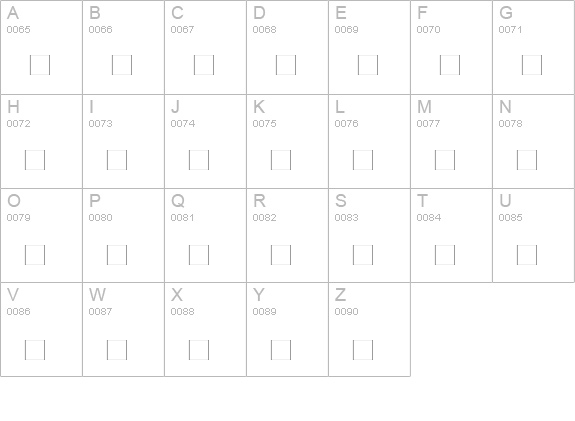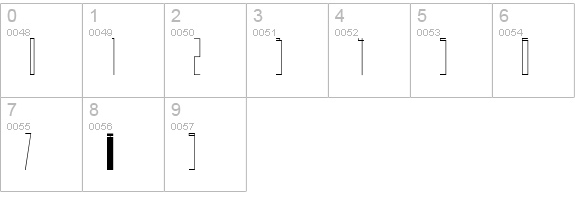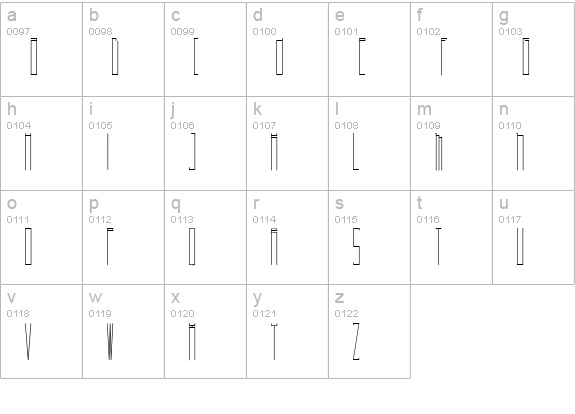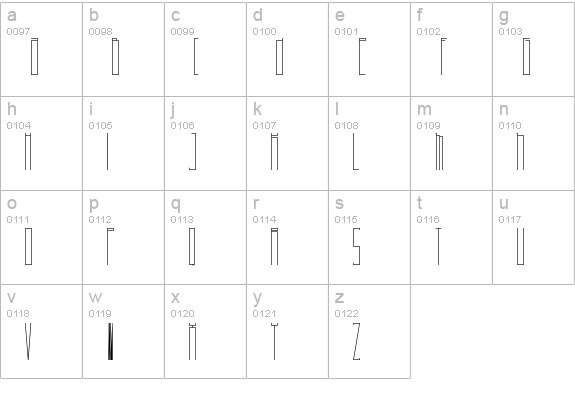
BABBIO-ALTO Font Details
Introducing BABBIO-ALTO, a stunning and versatile font that is sure to elevate your design projects to new heights. With its elegant and sleek letterforms, BABBIO-ALTO exudes sophistication and modernity, making it perfect for a wide range of applications. This font is a true testament to the art of typography, with each character meticulously crafted to create a harmonious and visually pleasing aesthetic. The clean lines and well-balanced proportions of BABBIO-ALTO give it a timeless appeal, making it suitable for both contemporary and classic designs. One of the standout features of BABBIO-ALTO is its versatility. Whether you're working on a logo, branding materials, invitations, or editorial layouts, this font seamlessly adapts to any context, adding a touch of elegance and professionalism to your work. But what truly sets BABBIO-ALTO apart is the fact that it is available for free. Yes, you read that right - this exceptional font can be downloaded at no cost from FontsMarket.com. We believe that everyone should have access to high-quality design resources, and BABBIO-ALTO is our way of contributing to the creative community. So why wait? Unlock your design potential today with BABBIO-ALTO. Download this remarkable font for free at FontsMarket.com and let your imagination run wild. Whether you're a seasoned designer or just starting out on your creative journey, BABBIO-ALTO is the perfect companion to bring your ideas to life.